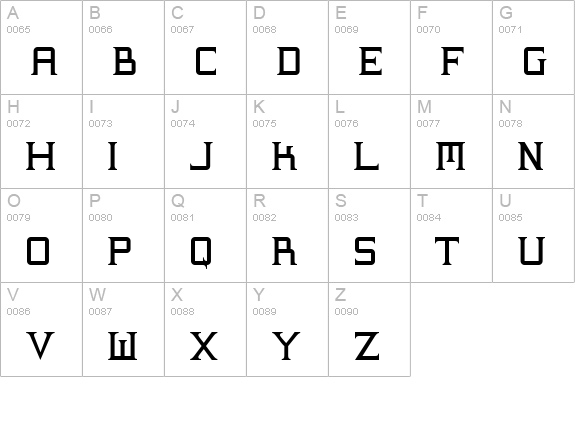
Supremaganda BTN Font Details
Supremaganda BTN font is a modern and stylish typeface that exudes elegance and sophistication. With its sleek lines and sharp edges, this font is perfect for creating eye-catching designs that demand attention. Whether you are working on a logo, poster, or website, Supremaganda BTN will elevate your project to the next level. What's even better is that Supremaganda BTN is available for free download at FontsMarket.com. This means you can easily access this high-quality font without breaking the bank. Don't miss out on the opportunity to enhance your designs with the timeless appeal of Supremaganda BTN. Download it today and let your creativity shine!